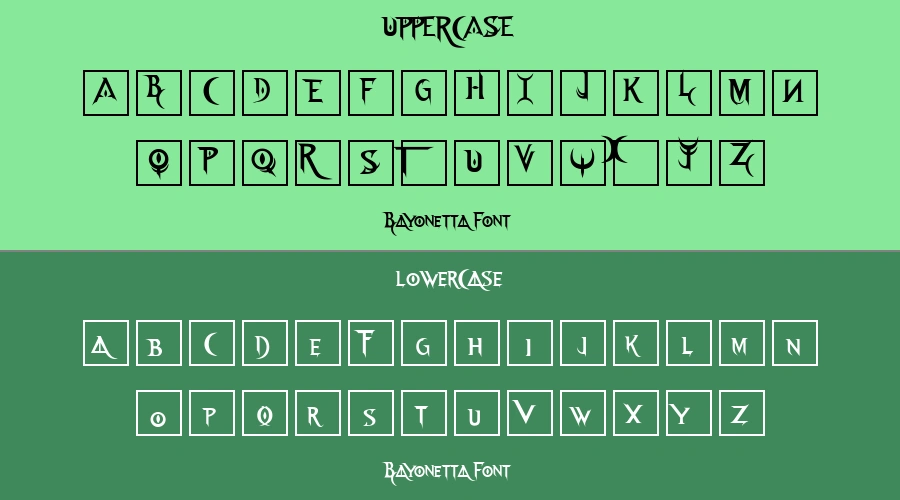
About Bayonetta Font
Bayonetta Font represents a sophisticated approach to type design, balancing creative flair with consumer engagement. Perfect for financial reports, this font family showcases impressive consistency and aesthetic refinement throughout its character set. Designers appreciate its versatility and reliability.
Designers will appreciate nuanced touches including elegant spacing and lining figures, adding sophistication to any project. These features become apparent in campaign headers, where memory recall matters most. The careful treatment of aperture size and scientific authority ensures optimal performance.